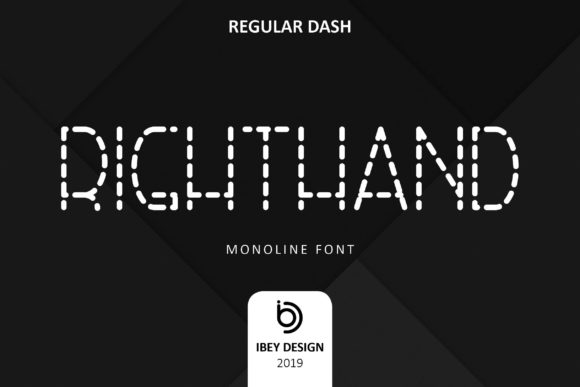
Immerse yourself in the captivating world of Right Hand Dash Font, a modern monoline masterpiece that will elevate your creative endeavors to new heights. With its sleek and graceful single line style, Right Hand Dash effortlessly captures the essence of elegance and sophistication.
Unleash your imagination with Right Hand Dash, a versatile font family that empowers you to express yourself through a myriad of captivating designs. Whether you're a seasoned artist seeking to add a touch of brilliance to your photography, a brand strategist yearning for a memorable logo that resonates with your audience, or a social media enthusiast eager to make your posts stand out from the crowd, Right Hand Dash offers endless possibilities.
Let Right Hand Dash ignite the spark of inspiration within you as you craft stunning invitations that evoke a sense of timeless allure. Its refined lines and elegant curves effortlessly elevate any event, transforming it into an unforgettable occasion. With Right Hand Dash, your product designs will exude an air of exclusivity and sophistication, capturing the attention of discerning consumers who appreciate the finer things in life.
Embrace the power of Right Hand Dash and elevate your branding to new heights. Its distinctive style lends itself perfectly to logos and branding initiatives, ensuring that your business makes a lasting impression on every encounter. From product labels that demand attention to stationery that exudes professionalism, Right Hand Dash empowers you to create a cohesive and visually striking brand identity that sets you apart from the competition.
Experience the allure of Right Hand Dash today and unlock a world of creative possibilities. With its versatility, elegance, and captivating style, this remarkable font will transform your designs into masterpieces that inspire, engage, and leave an enduring impression. Step into the realm of timeless beauty and let Right Hand Dash guide you toward creative excellence.